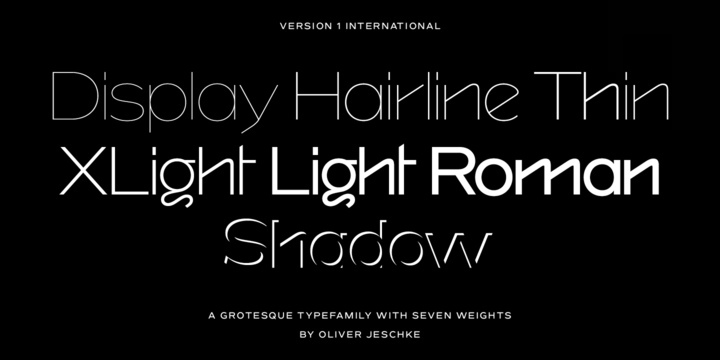
Version 1 International Font is perfect for global branding, multinational corporations, international marketing campaigns, tech companies, software interfaces, diplomatic communications, worldwide event materials, cross-cultural design projects, and universal brand systems.
Version 1 International Font is exciting because it embodies the future of global communication with its universal design language that transcends cultural boundaries while maintaining exceptional functionality across diverse linguistic systems. Its innovative approach to international typography ensures consistent brand recognition worldwide, making it perfect for organizations operating in multiple markets and cultures.
The Version 1 International Font family includes Light, Regular, Medium, Bold, Heavy weights, matching Italic styles, Condensed versions, Extended variations, Display cuts, and Multilingual alternates, providing designers with comprehensive tools for creating cohesive brand experiences that work seamlessly across different languages and cultural contexts.
Version 1 International Font Free Download represents the evolution of global typography, featuring scientifically optimized letterforms that maintain visual harmony across extensive character sets and multiple writing systems. This groundbreaking typeface combines technical precision with cultural sensitivity, creating a unified design solution that respects linguistic diversity while ensuring consistent brand communication worldwide.
Whether you're developing international brand identities, designing multilingual websites, creating global marketing materials, or producing cross-border communications, Version 1 International Font provides the universal foundation needed for successful global brand expansion. Its inclusive character makes it particularly effective for technology companies, international organizations, global service providers, and multinational corporations targeting diverse audiences.
Perfect for global brand managers, international design teams, localization specialists, and creative directors working with worldwide brands, this font offers the universal qualities essential for successful cross-cultural communication. The typeface's systematic approach ensures consistent performance across different markets, languages, and cultural preferences.
Version 1 International Font includes extensive Unicode support, advanced multilingual features, and culturally optimized spacing that guarantees superior performance in international design applications. Its global approach to typography makes it indispensable for brands competing in worldwide markets. Unite your global communications with Version 1 International Font Free Download and create typography that speaks every language.